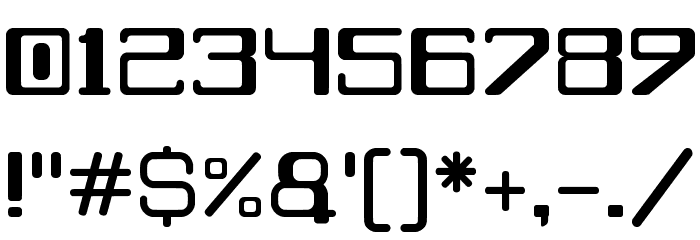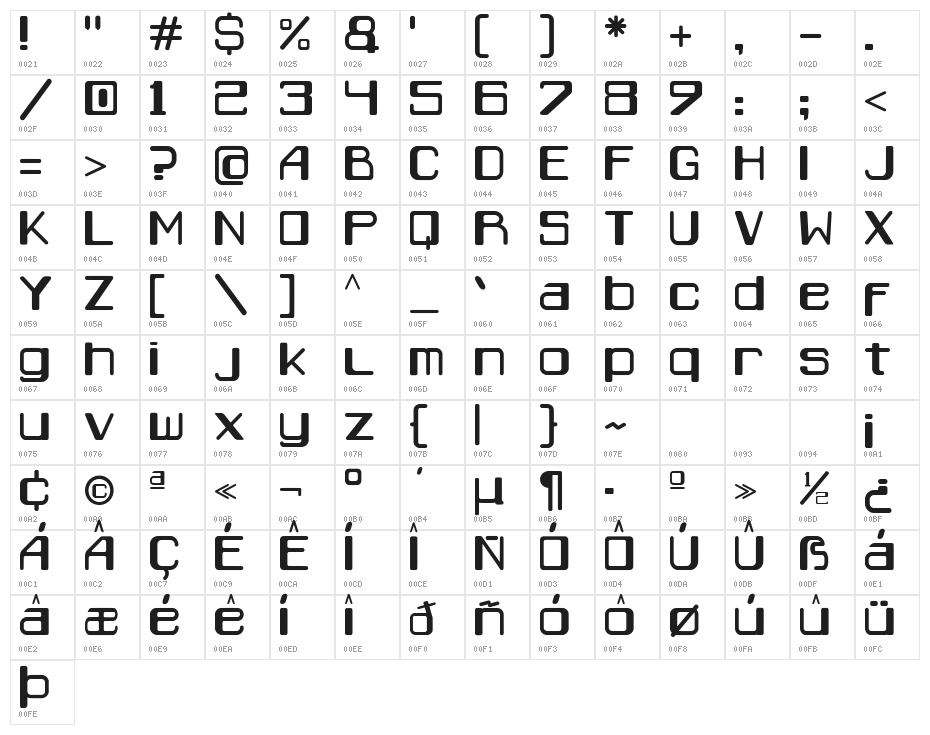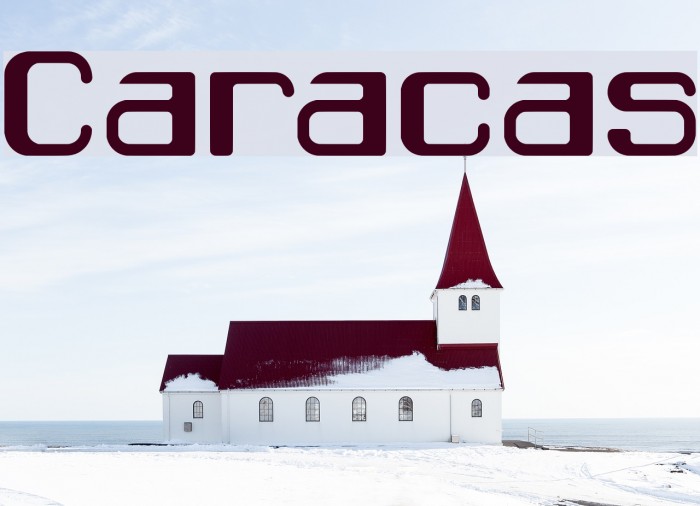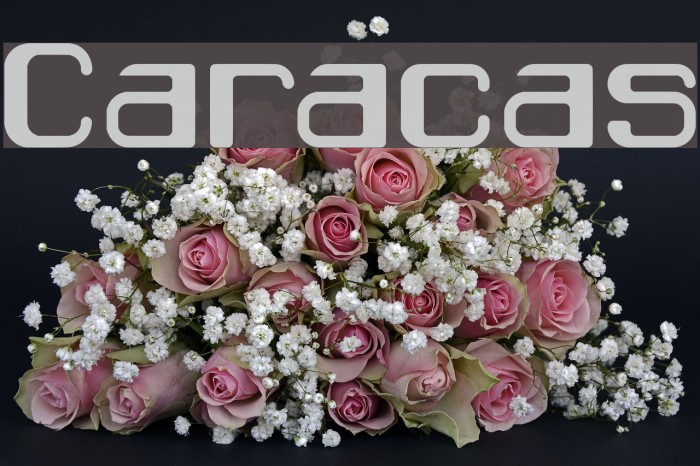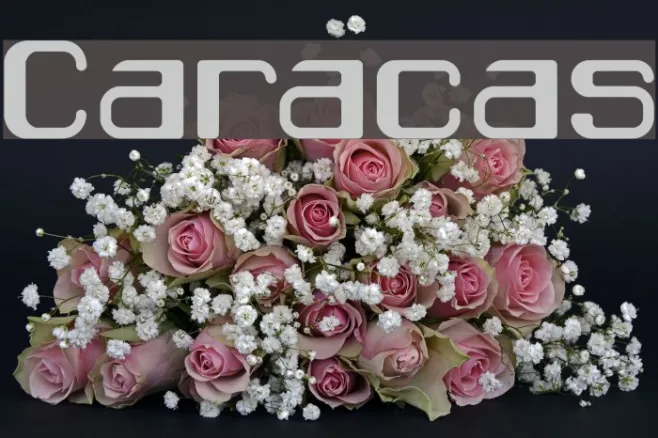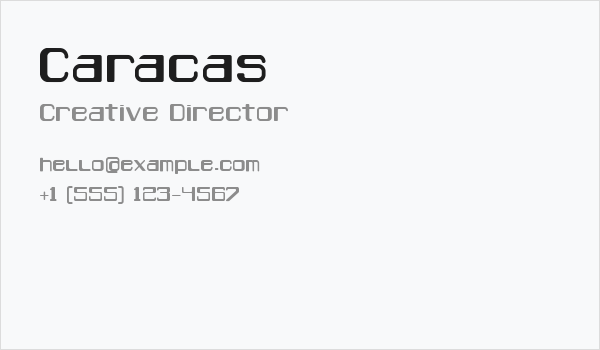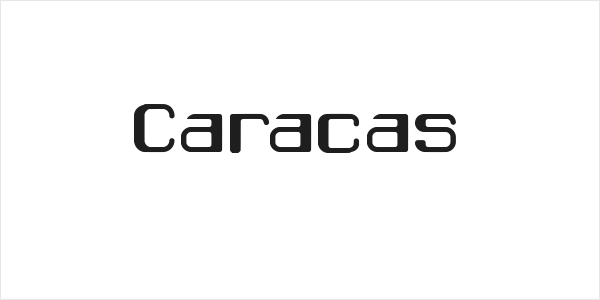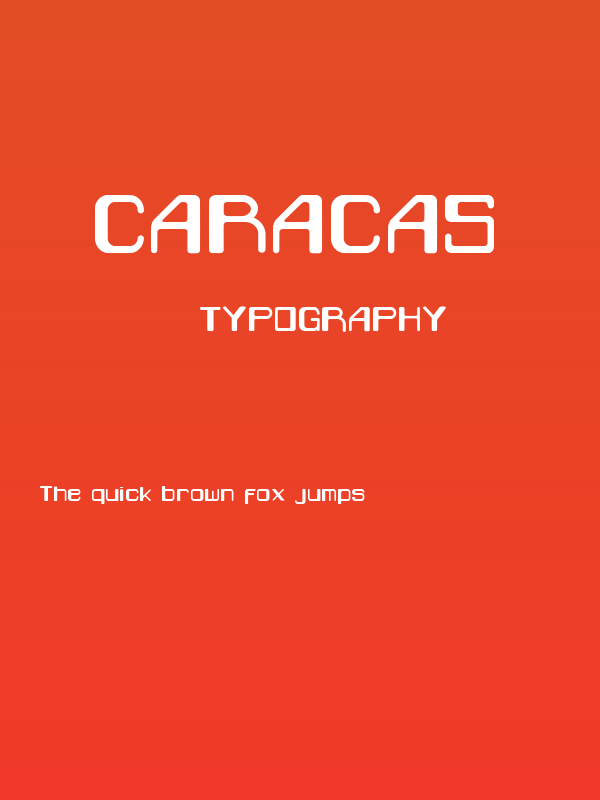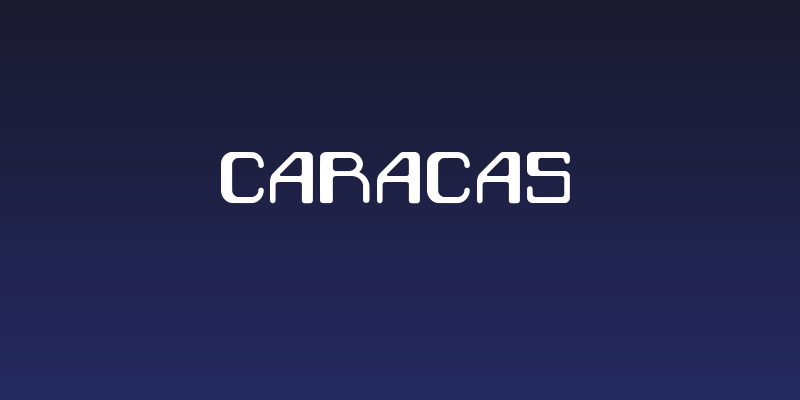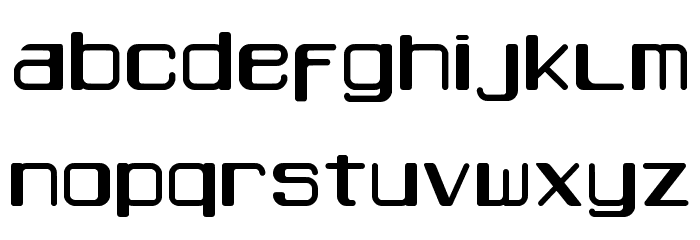
Caracas Font
Caracas Description
This font features a modern, geometric design with a distinct, futuristic appeal. The characters are constructed with clean lines and rounded edges, creating a harmonious balance between sharpness and softness. The uppercase letters are bold and assertive, while the lowercase letters maintain a consistent style with slightly more curvature. The numerals are clear and legible, designed to complement the overall aesthetic. Special characters are thoughtfully integrated, maintaining the font's cohesive look. This typeface is versatile, suitable for both digital and print media, offering a unique touch to any project.
| Use Case | Headlines, Logos, Digital Interfaces |
| Proposed Projects | Ideal for tech branding, digital interfaces, modern posters, and innovative product packaging. |